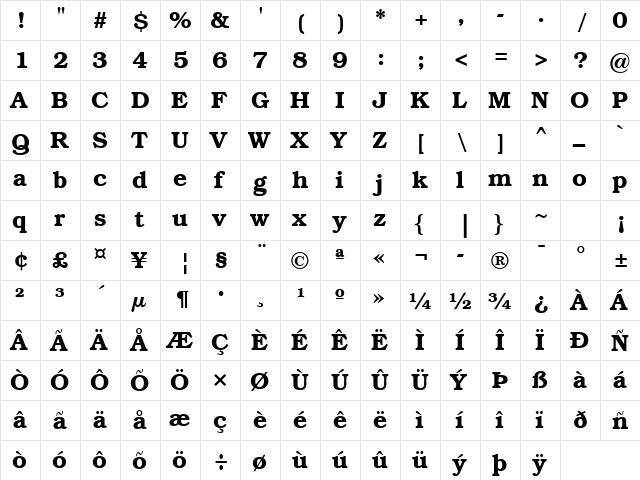
ITC Bookman SWA Demi
Design Context for ITC Bookman SWA Typeface
ITC Bookman SWA offers clean, dependable letterforms without strong stylistic allegiance, making it a practical choice for designers who need flexibility.